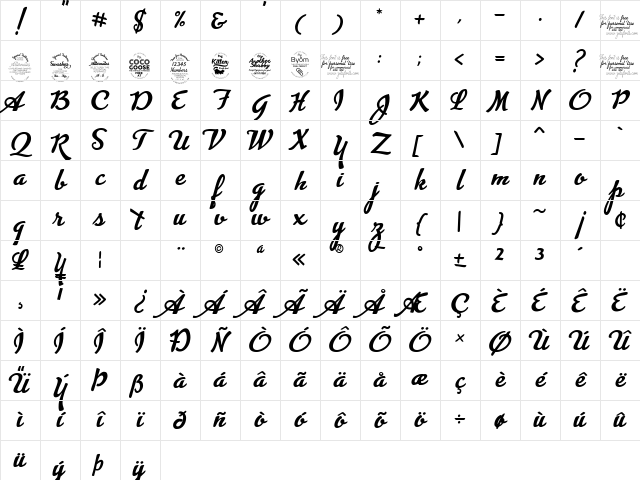
Advertising Script Bold Free Font
Advertising Script Bold
Foundry: Studio Kmzero
Designer: Cosimo Lorenzo Pancini with Matteo Chiti, Luca Chiti and Andrea Tartarelli after George Russ
Design Context for Advertising Script
Advertising Script flows with the natural rhythm of handwritten lettering, making it ideal for designs that call for warmth and personal expression. Its bold stroke weight gives it real presence on the page.
Font Pairing: Combine Advertising Script with a simple geometric sans for maximum contrast - the tension between flowing curves and clean structure is a classic typographic pairing.
Pro Tip: Use Advertising Script for short runs of text - names, titles, or taglines. Extended body copy in script faces tires the eye quickly.